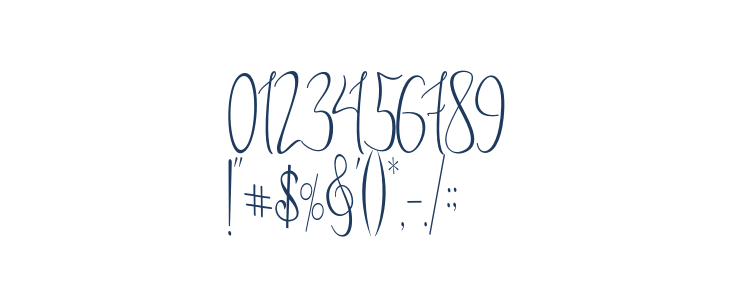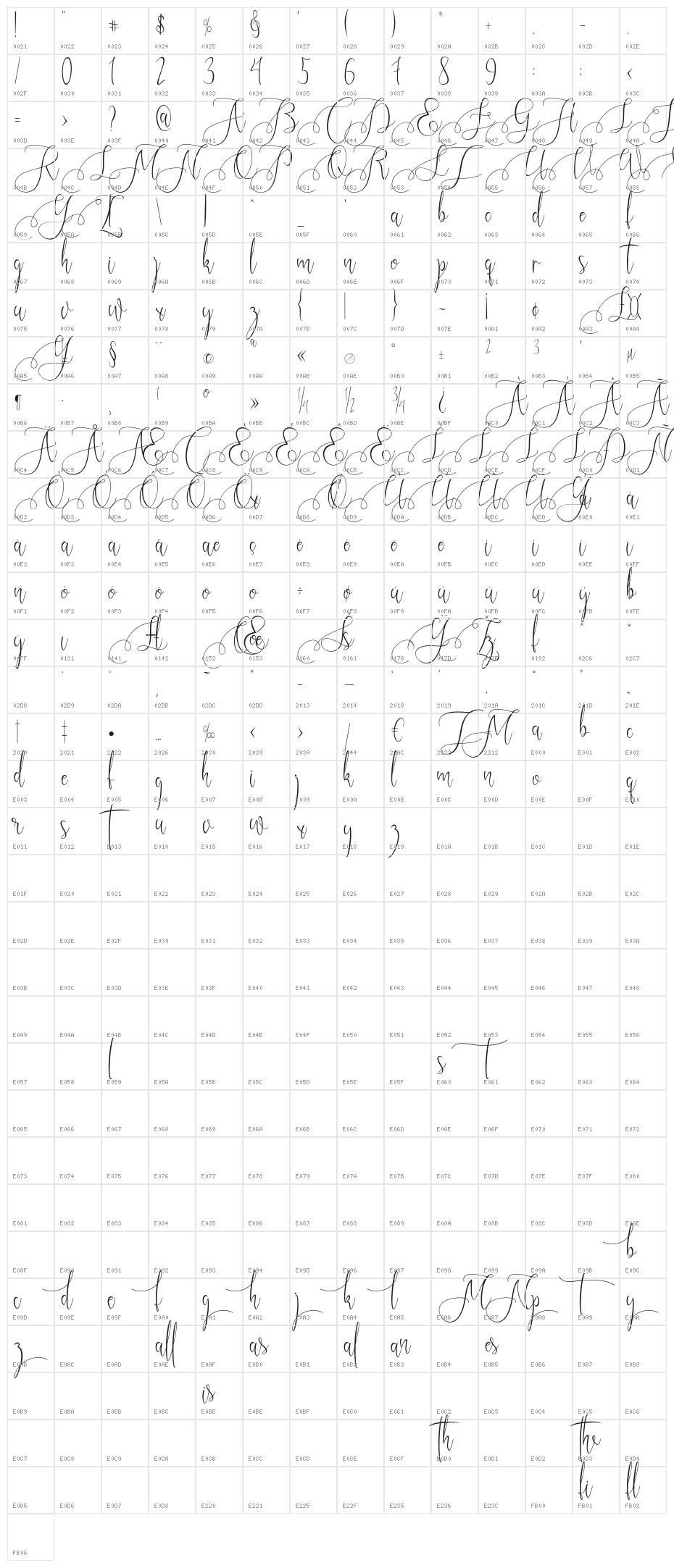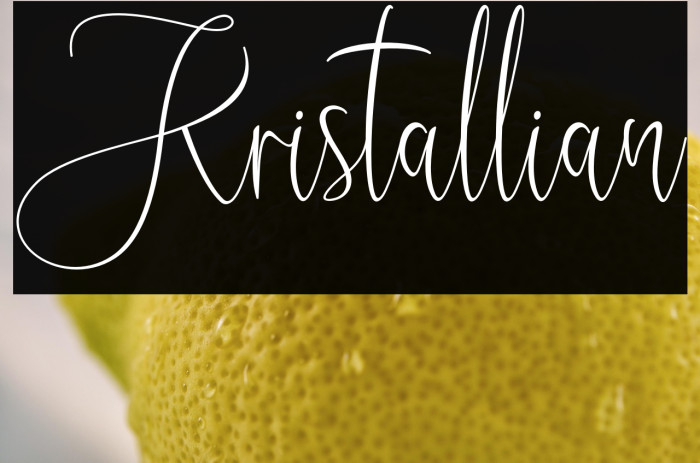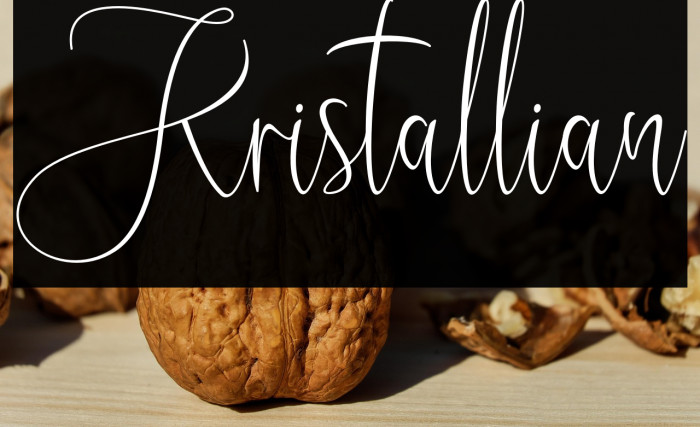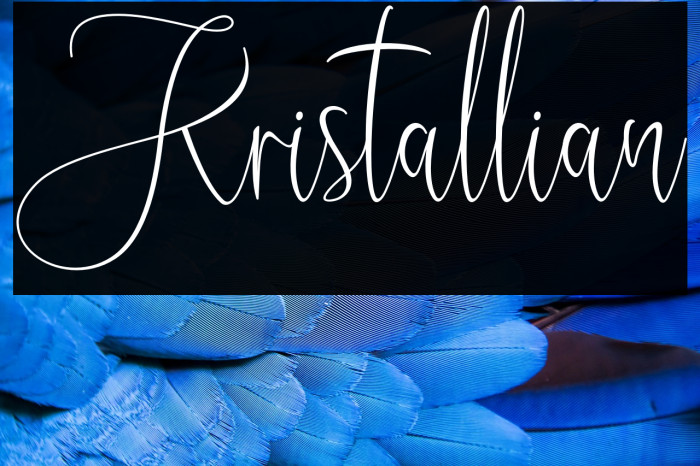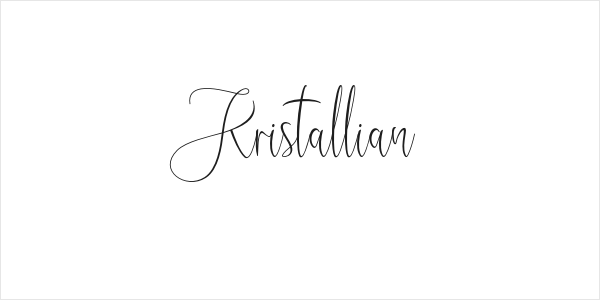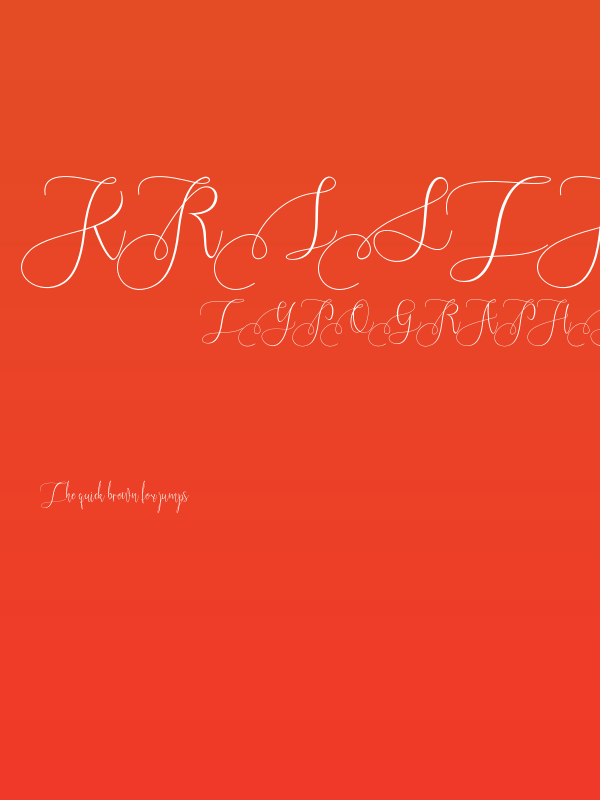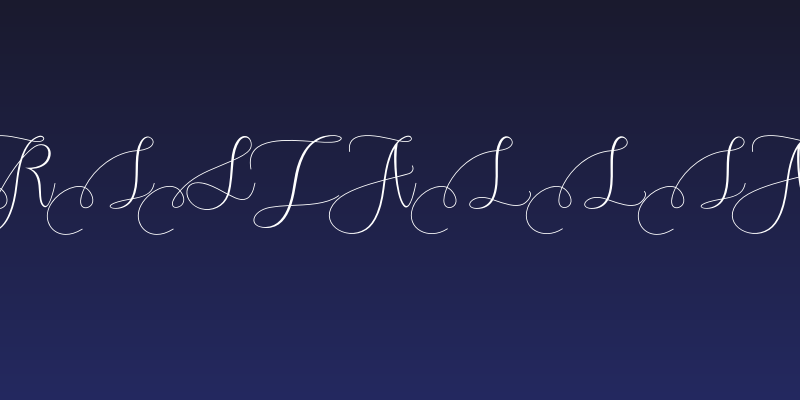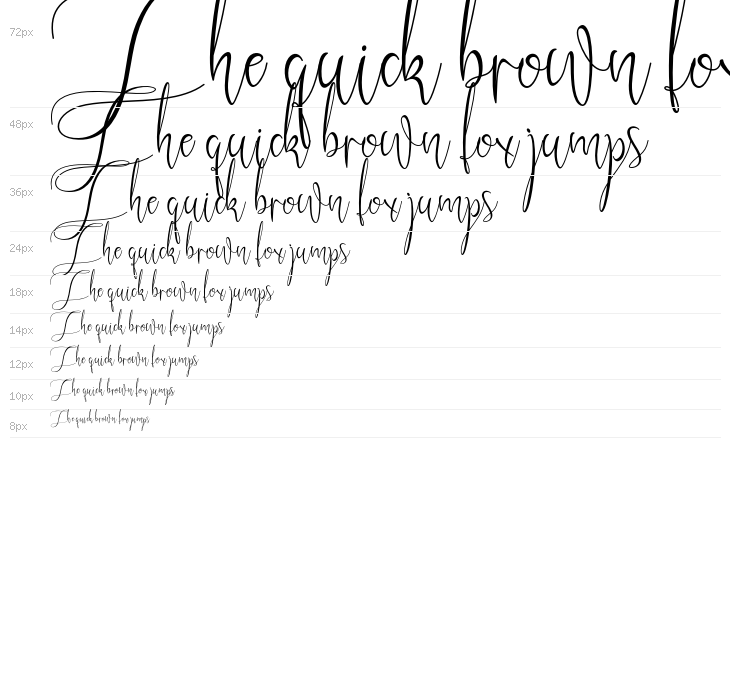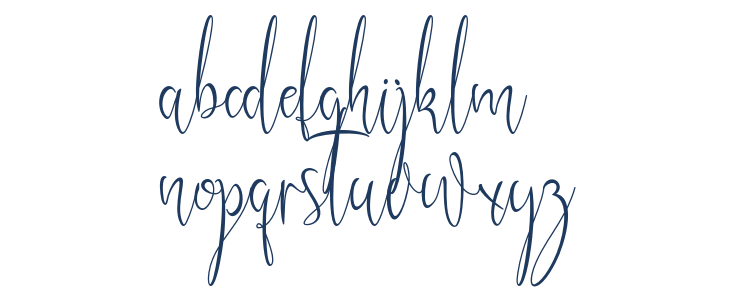
Kristallian Font
Kristallian Description
This elegant script font features intricate loops and flourishes, creating a sense of sophistication and grace. The uppercase letters are adorned with delicate swirls, while the lowercase letters maintain a fluid, connected style. The numerals and special characters are designed with the same attention to detail, ensuring a cohesive look throughout. The font's thin strokes and high contrast give it a refined appearance, making it suitable for formal invitations, branding, and decorative purposes.
| Overall Style | Elegant, Decorative |
| Use Case | Invitations, Branding, Decorative Headlines |
| Proposed Projects | Ideal for wedding invitations, luxury branding, greeting cards, and decorative headlines. |